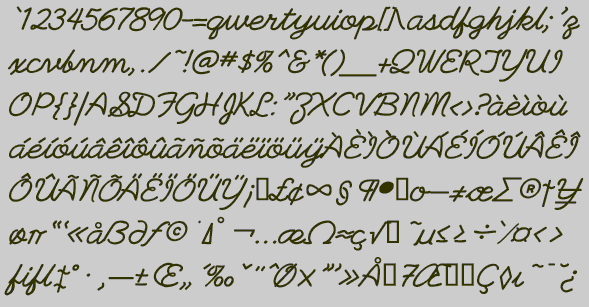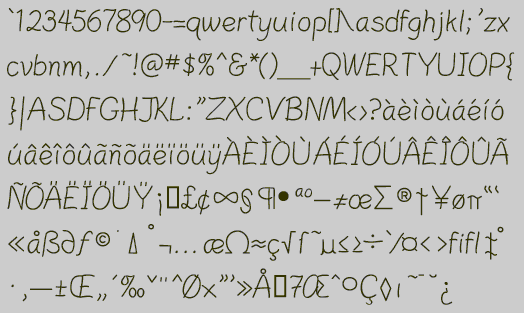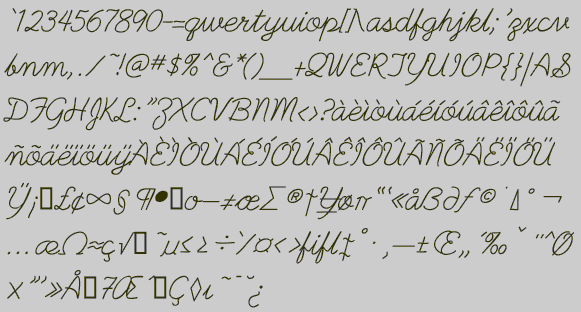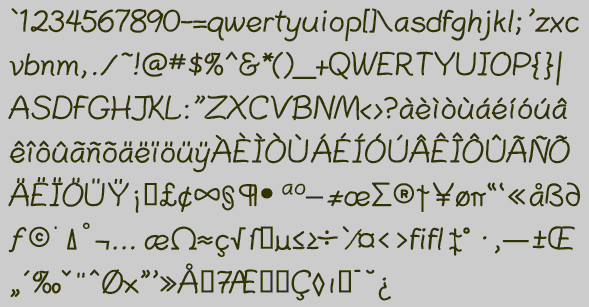
PlainPensle ((Plain, Bold, Italic, BoldItalic); PlainPensleXBold (Plain and Italic)
One reason for the abundance of informal handwriting (or hand printing) faces is that they are easy to do. Who is to say that there is mistake? It is a safe sort of face to create.
PlainPensle attempts to give a very ordinary or generic type of hand printing on the plain and bold styles, and on the italics it tries to give a generic hand cursive. If you need a plain handwriting typeface, this typeface may be what you need.